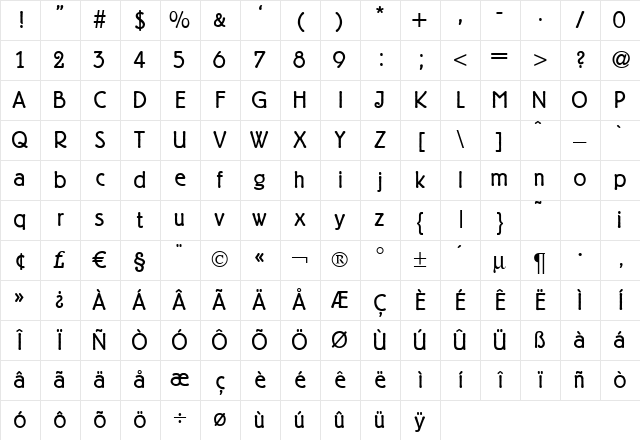
B693-Deco Regular
B693-Deco Family
Design Context for B693-Deco
B693-Deco is a composed and adaptable typeface that performs quietly and consistently across a wide range of design contexts.